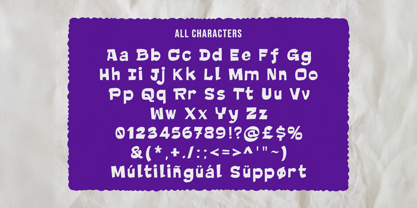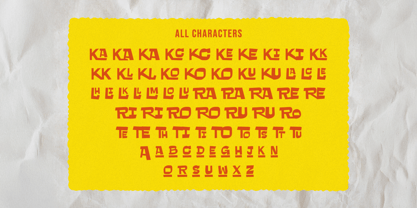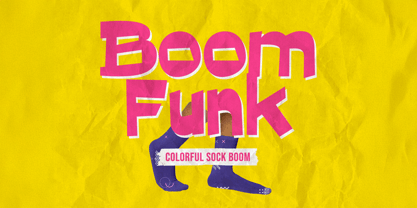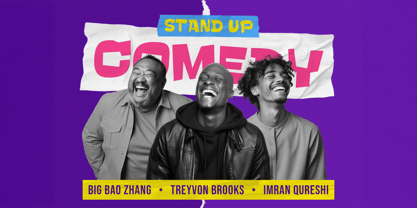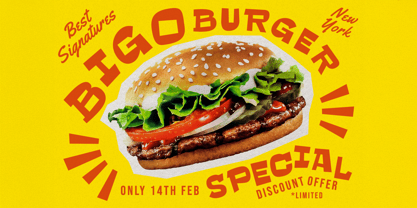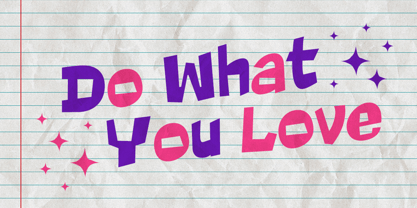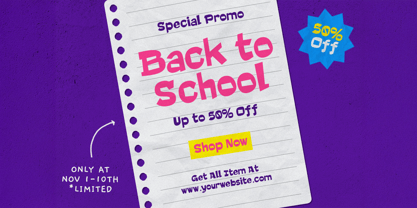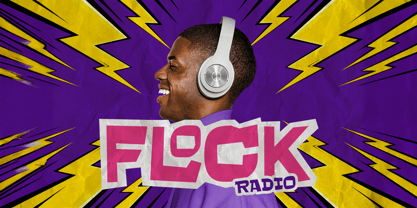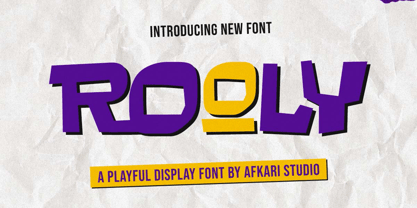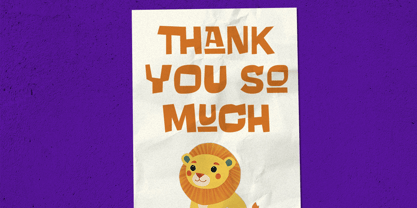
Rooly
by Afkari Studio
The Rooly Font Family was designed by Musthafa Kamal Emje and published by Afkari Studio. Rooly contains 1 styles.
Rooly is a fun and cheerful display font designed to bring energy and personality to your creative projects! With its bold shapes, quirky curves, and friendly character, Rooly is perfect for eye-catching designs like logos, posters, merchandise, packaging, social media posts, and kids-themed projects.
Whether you're crafting a playful brand identity, a vibrant headline, or a joyful illustration, Rooly adds a splash of happiness and creativity to every letterform. Its versatility makes it a great choice for both digital and print designs!
- Complete set of uppercase and lowercase letters, numerals, and punctuation marks
- Unique alternates and ligatures for additional character variety
- Multilingual support includes characters like ä, ö, ü, Ä, Ö, Ü, ß, ¿, and ¡
Make your message pop and your design shine with Rooly – A Playful Display Font!